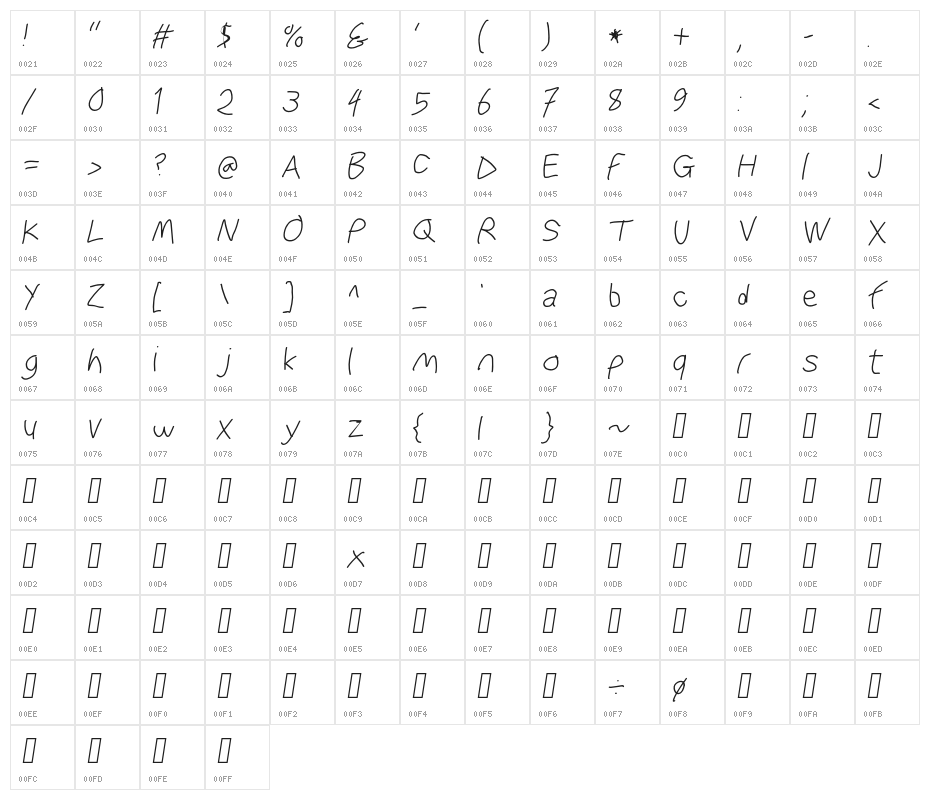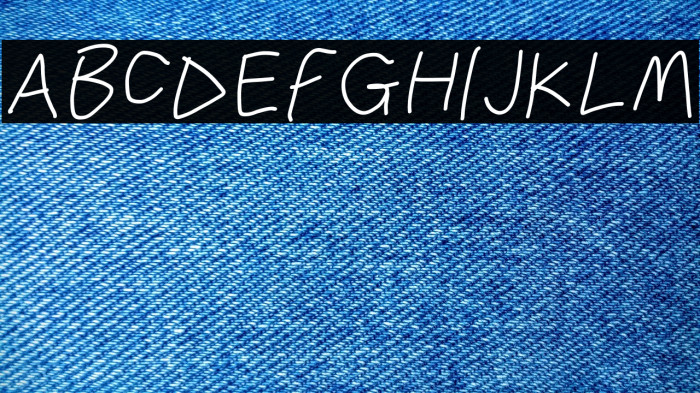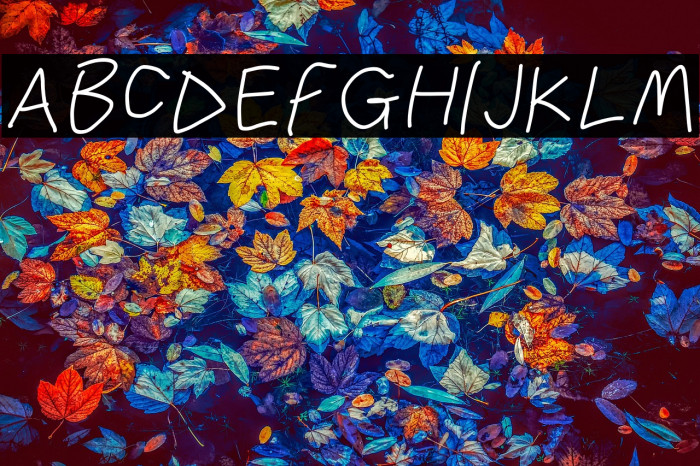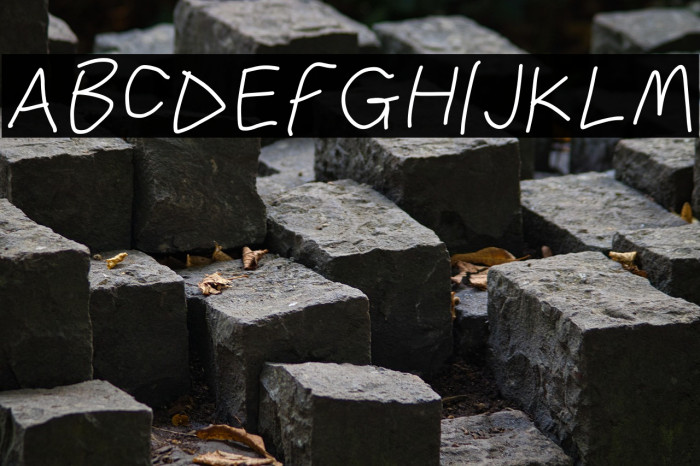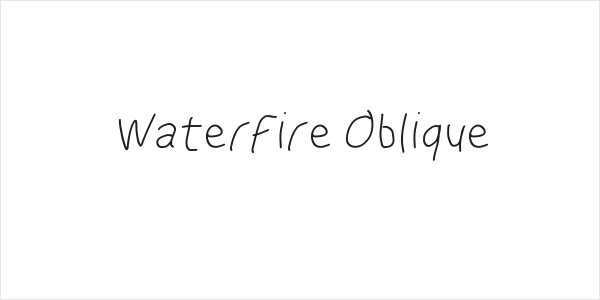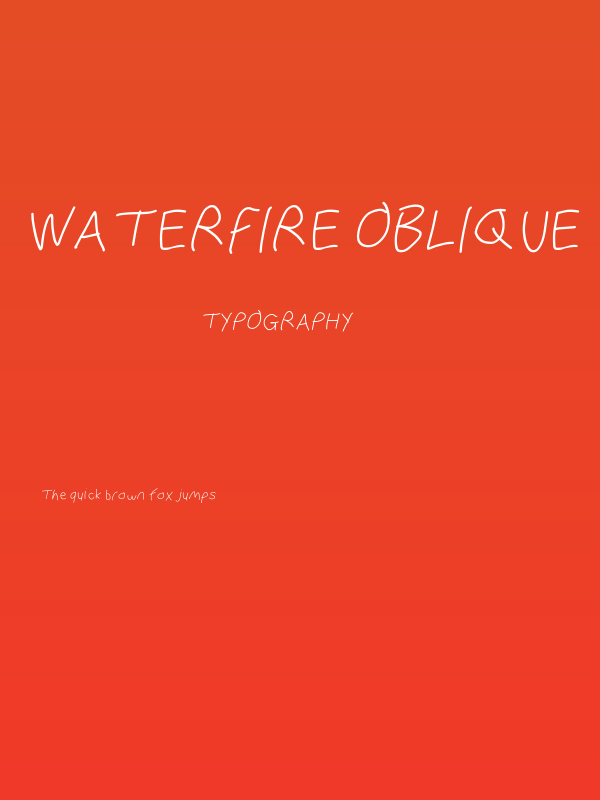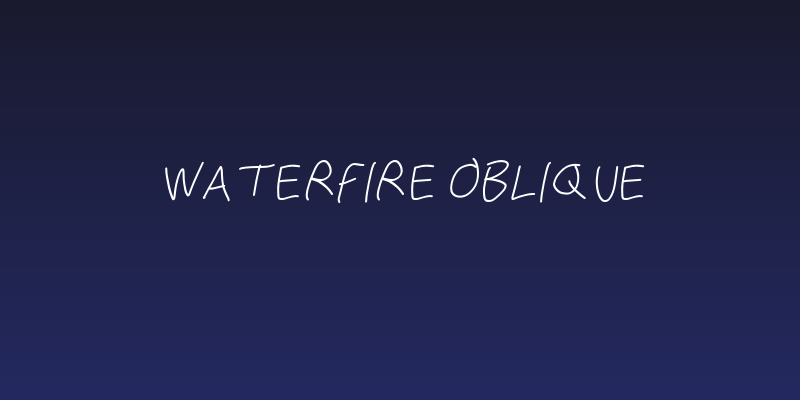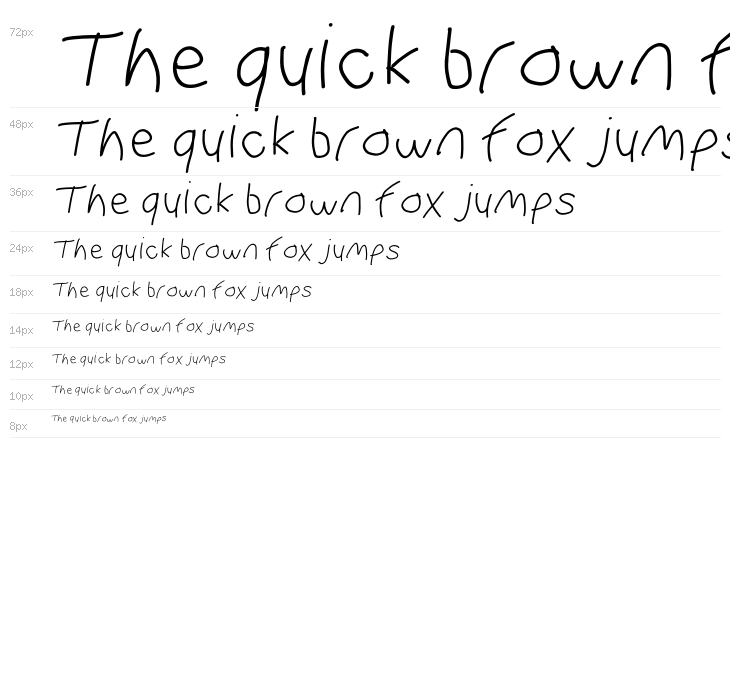
WaterFire Oblique Font
WaterFire Oblique Description
This font features a playful and casual handwritten style, characterized by its oblique orientation and smooth, flowing lines. The letters are slightly slanted, giving a dynamic and informal appearance. The strokes are consistent in width, contributing to a uniform look across all characters. The uppercase and lowercase letters maintain a cohesive style, with rounded edges and a natural, freeform structure. Numbers and special characters follow the same aesthetic, ensuring a harmonious overall design. This font exudes a friendly and approachable vibe, making it suitable for projects that require a personal touch.
| Use Case | Logos, Headlines, Informal Text |
| Proposed Projects | Ideal for greeting cards, personal invitations, casual branding, and social media graphics. |